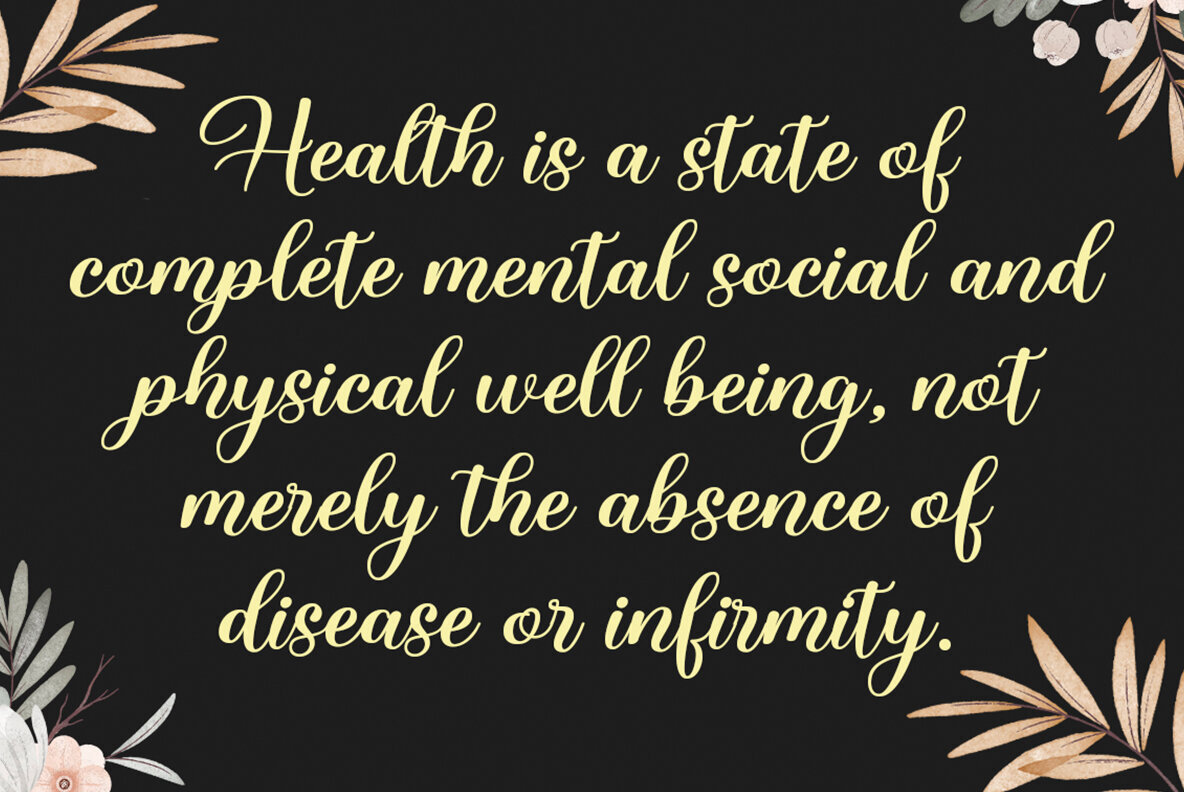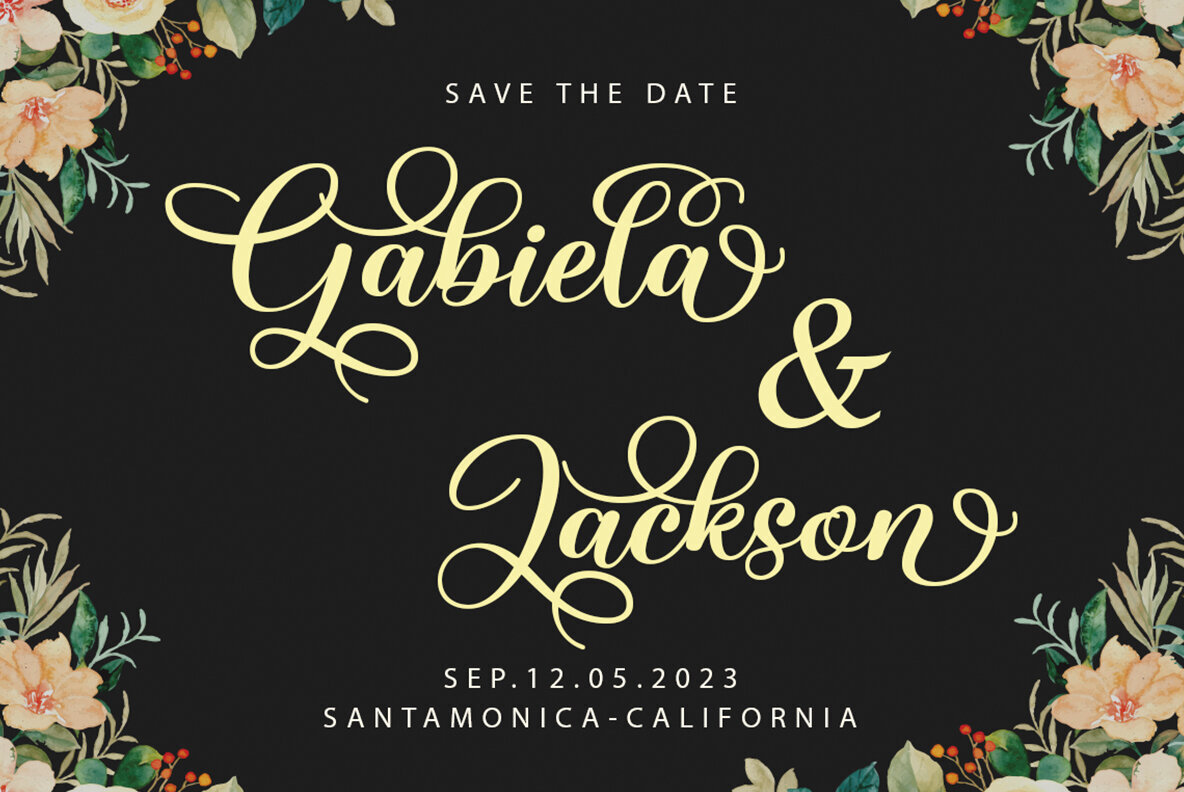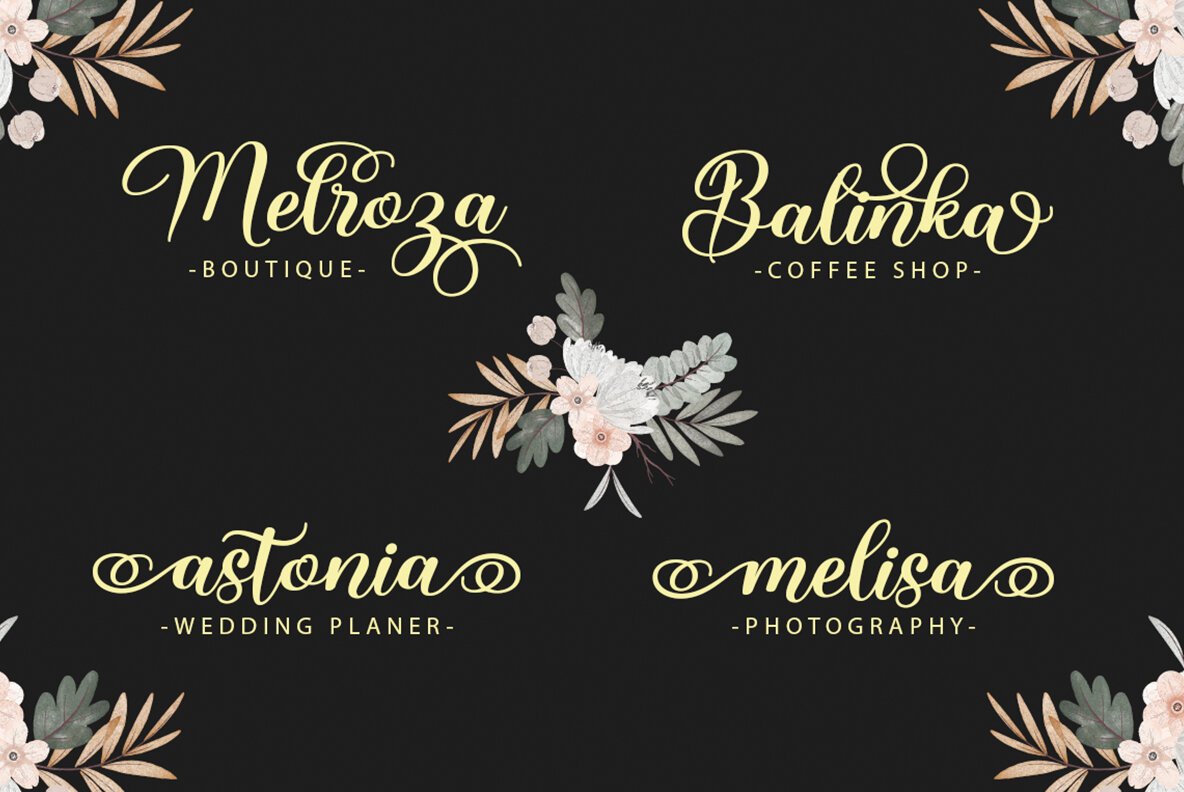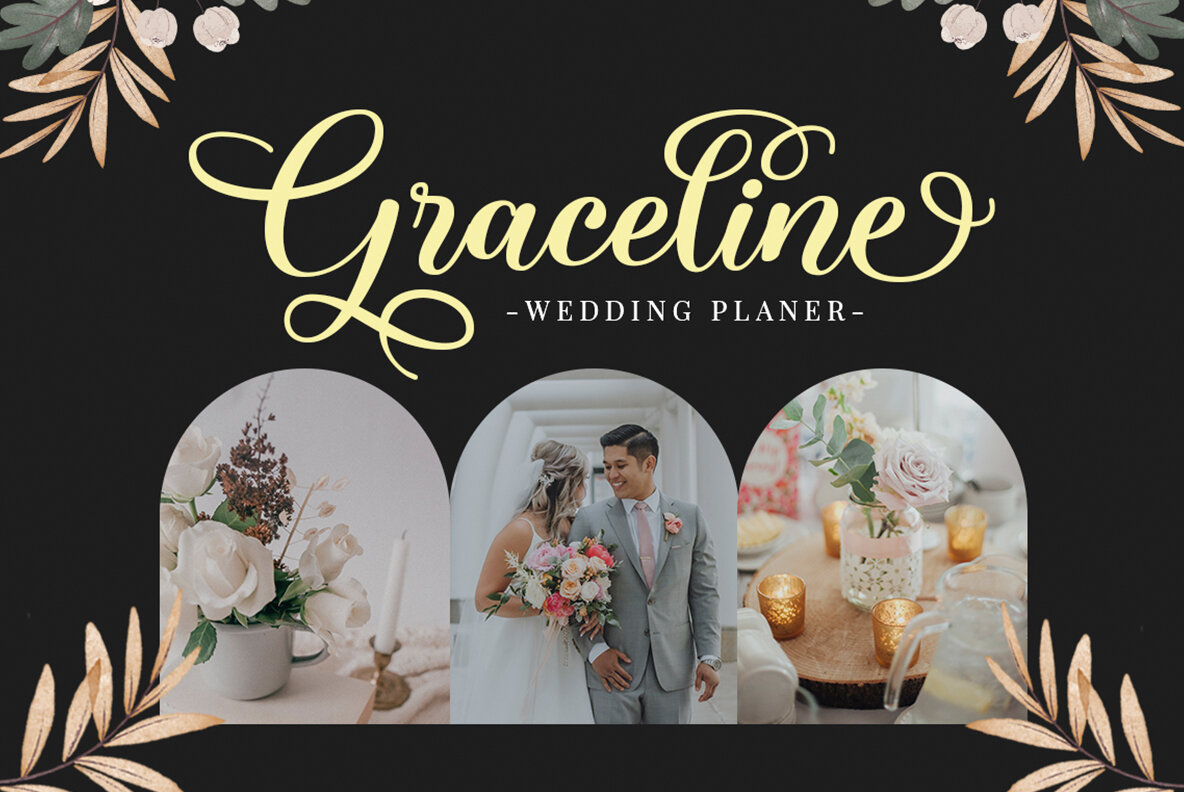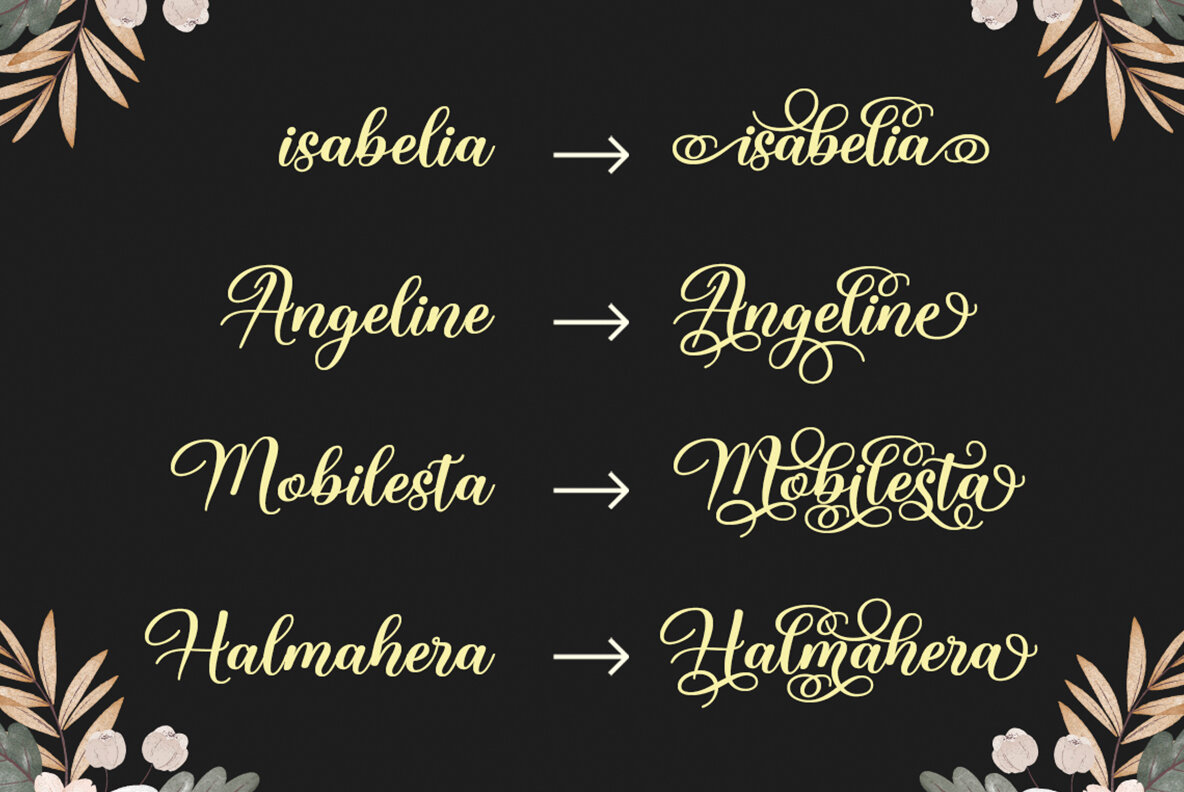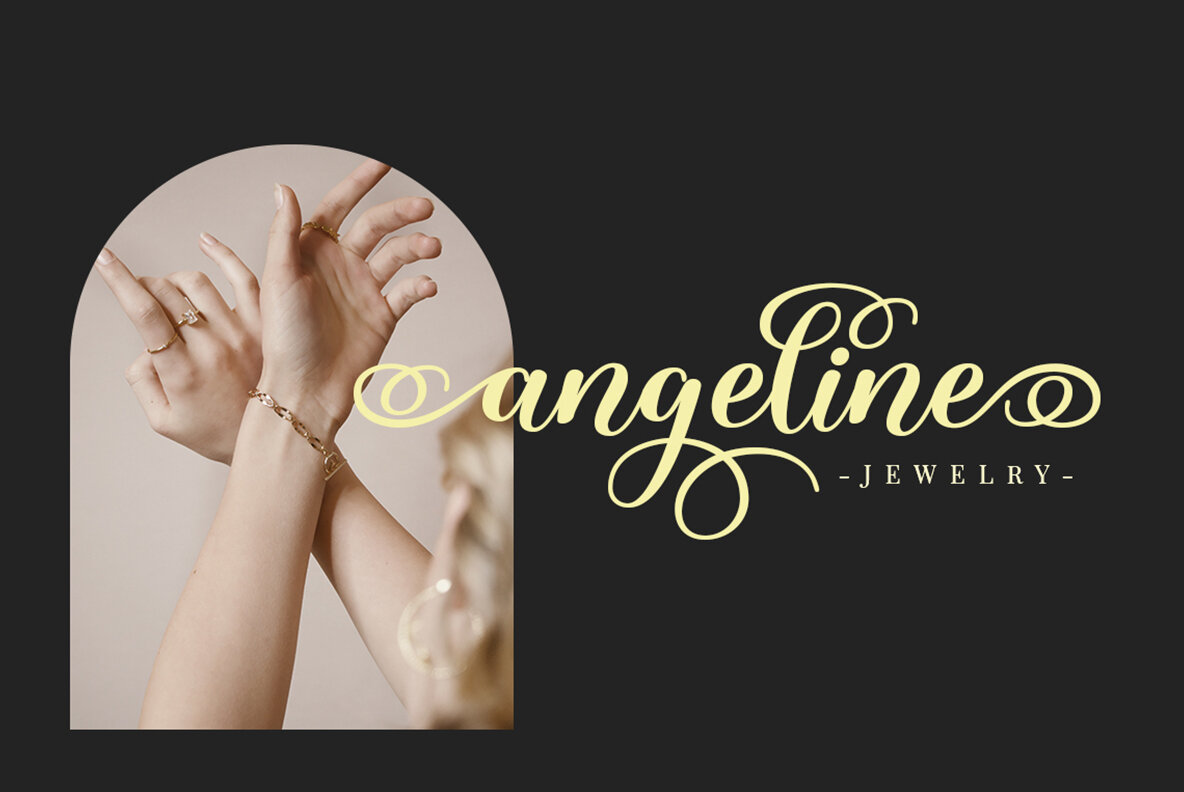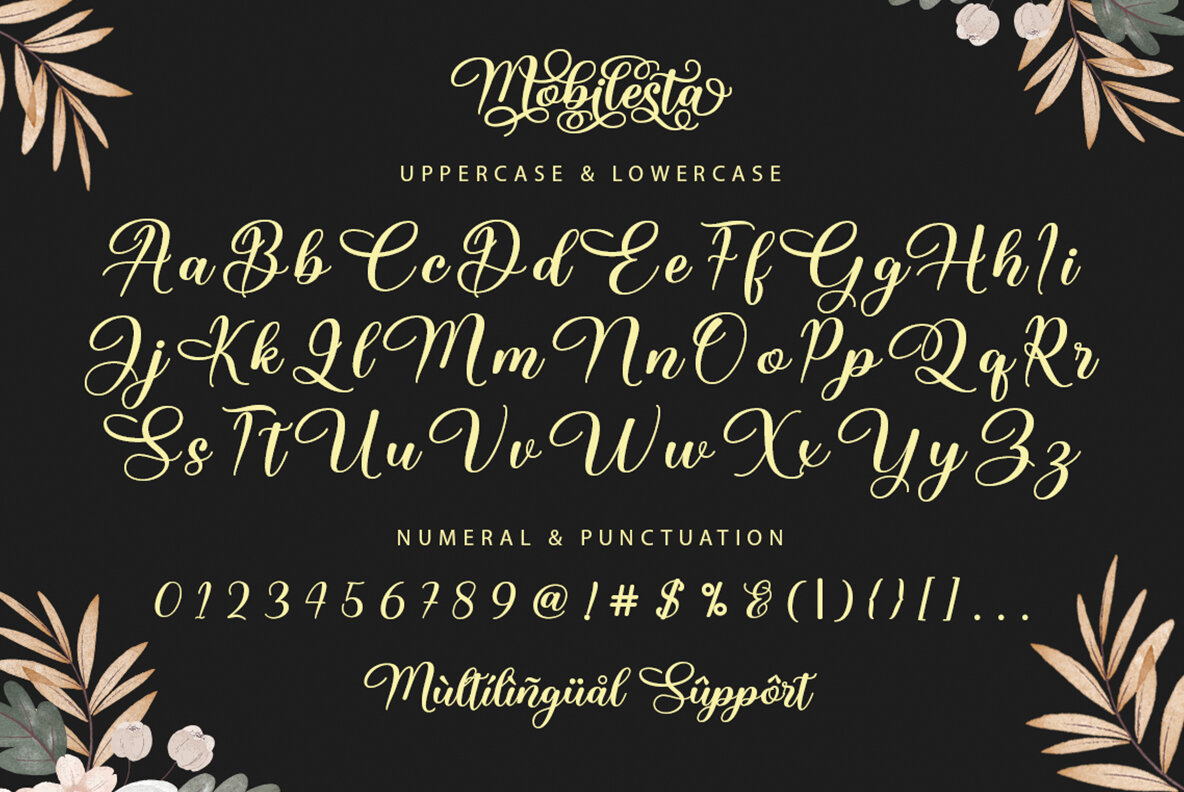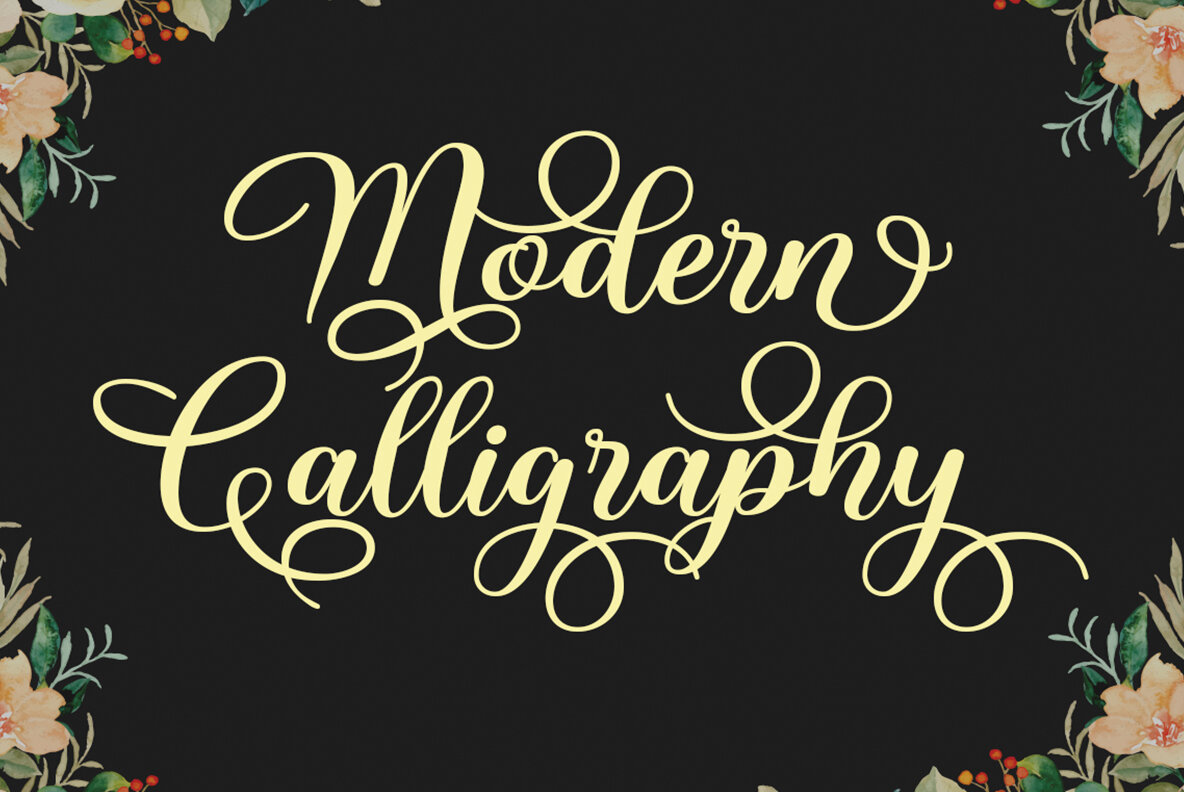
Mobilesta Font
Mobilesta Regular
Mobilesta Script is a unique handwriting font with a modern, pleasing aesthetic. Its natural style is ideal for elevating your creative projects to new heights. This font is perfect for various design applications, including branding, web and editorial design, print, craft projects, quotes, logos, wedding invitations, romantic cards, labels, packaging, and more. To learn how to access all alternative characters using Adobe Illustrator, you can watch this informative video tutorial:Mobilesta Script: A Modern and Natural Handwriting Font
Features of Mobilesta Script